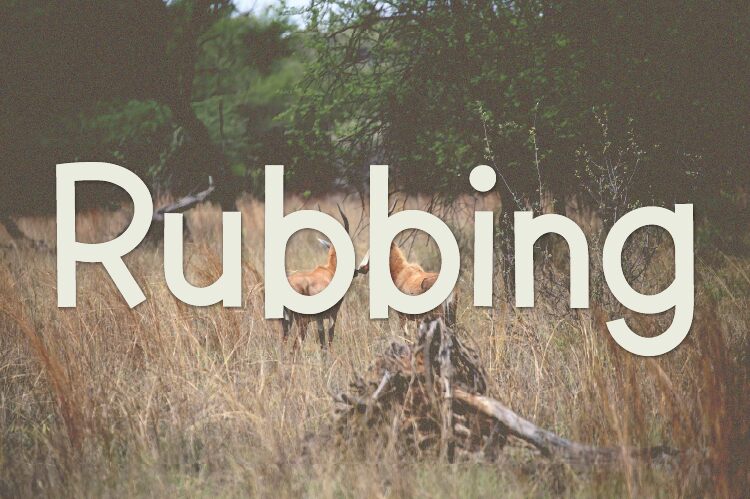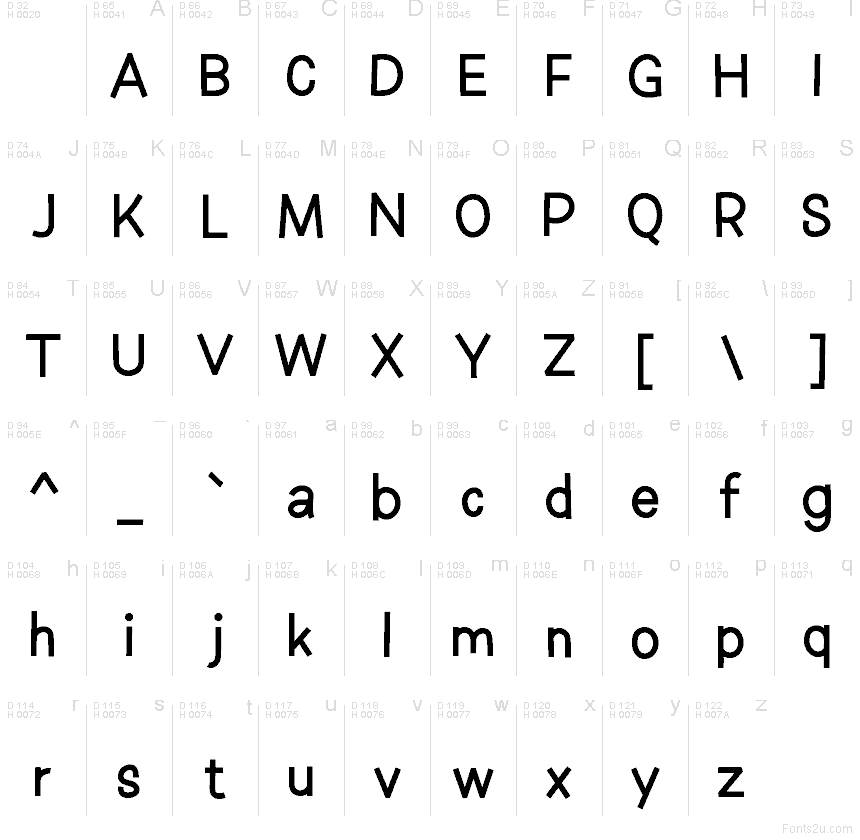
Rubbing
Rubbing font by HannaBie Creative Studio is a free comic display typeface with a clean, inky smoothness that feels both playful and grown-up. Its rounded curves and compact bowls give it a soft, friendly energy, while the consistent stroke weight keeps things tidy and easy to read. The overall rhythm feels like carefully hand-lettered signage—casual, but clearly crafted.
Using Rubbing, headlines instantly gain a chatty, approachable voice that works beautifully for kids’ products, comics, YouTube thumbnails, posters, branding for fun-focused businesses, and bold social media graphics. This free font holds its charm at larger sizes, where the chunky curves really shine. Pair Rubbing with a simple, light sans serif for body text to keep layouts balanced and let its bubbly personality lead the conversation.